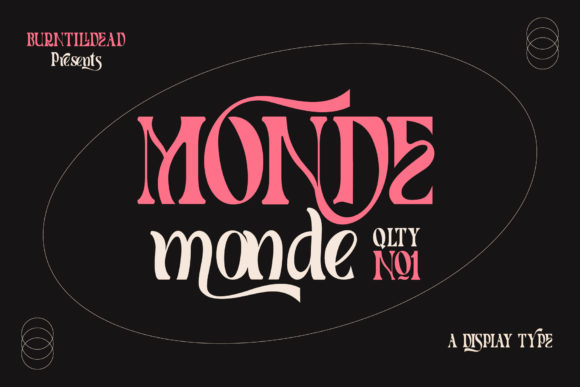
Dive into the world of sophistication and elegance with Monde Font, the serif masterpiece crafted by Burntilldead. This font transcends the ordinary, captivating you with its graceful characters and sleek, stylish vibe. Experience the power of typography as Monde Font elevates your projects to new heights, transforming them into visual masterpieces.
Unleash your creativity and let Monde Font ignite your artistic vision. Its meticulously designed characters dance across the page, leaving a trail of beauty and finesse. Whether you're crafting logos, branding materials, or any design project that demands a touch of class, Monde Font is your perfect companion.
With Monde Font, you'll discover a new level of versatility. Its carefully crafted letterforms adapt seamlessly to a wide range of design styles, from classic and timeless to modern and edgy. Experiment with different combinations, mix and match elements, and let your imagination run wild. The possibilities are endless.
Embrace the ease of use that Monde Font offers. PUA encoded, this font allows you to effortlessly access all of its glyphs and swashes. Unleash your creativity without limits, knowing that Monde Font has got your back.
Don't settle for ordinary fonts. Choose Monde Font and unlock a world of typographic excellence. Let your designs shine with sophistication, elegance, and a touch of magic. Experience the Monde Font difference today and elevate your projects to the highest levels.